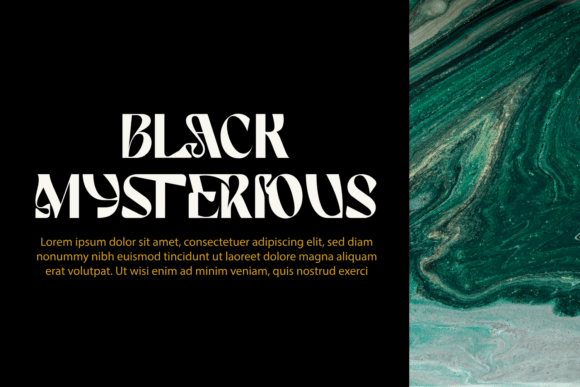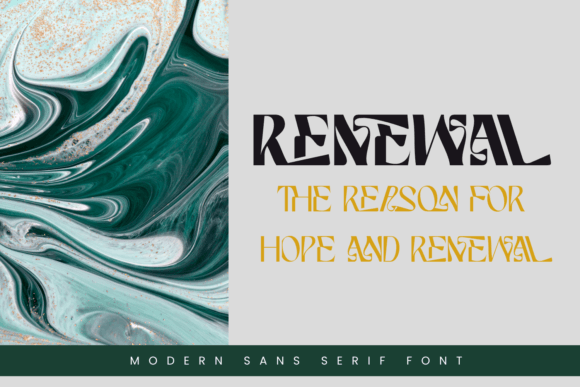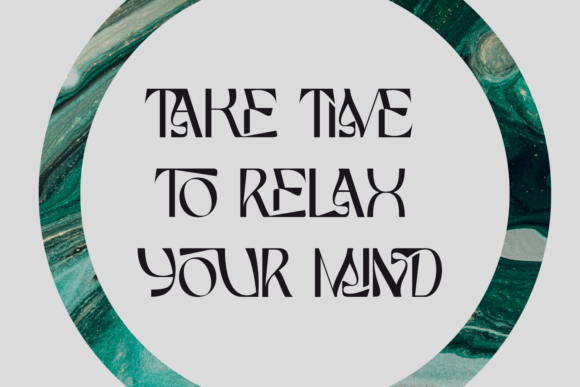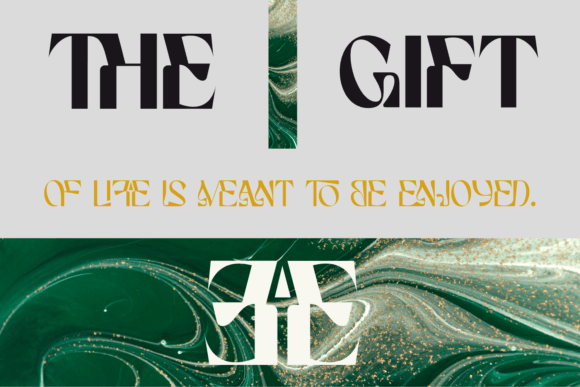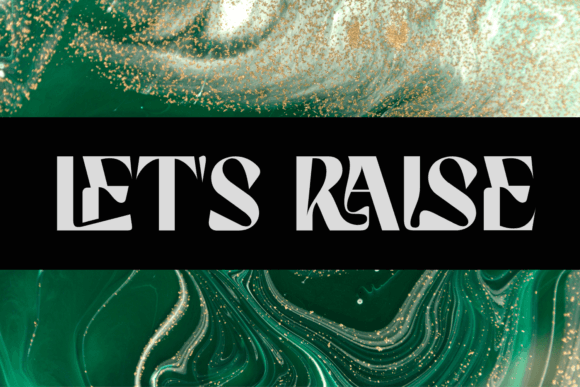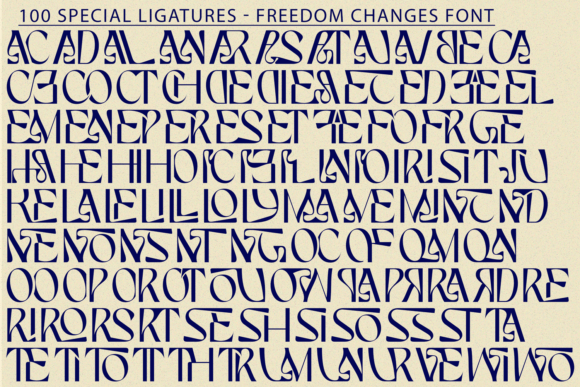
Freedom Changes Font: Elevate Your Designs with Elegance and Sophistication
In the world of design, typography plays a crucial role in conveying the tone and aesthetic of a project. For those seeking a font that embodies modern femininity and sophistication, Freedom Changes Font is an exceptional choice. This elegant luxury sans serif font is designed to bring a touch of luxury and elegance to various design projects, making it perfect for those who aim to create a graceful and high-end visual experience.
Unveiling Freedom Changes Font
Freedom Changes Font is not just any ordinary font; it’s an elegant beauty luxury sans serif font that has been meticulously crafted to cater to the needs of designers and crafters who are looking for a sophisticated and modern typeface. Its sleek design is versatile, making it suitable for a wide range of applications, from designing templates and brochures to creating captivating videos, advertising branding, logos, invitations, and more.
Key Features of Freedom Changes Font
- Elegant and Luxurious Design: The font boasts a sleek and sophisticated design that adds a touch of luxury and elegance to any project.
- Modern Femininity: It perfectly encapsulates modern femininity, making it ideal for designs that require a graceful and high-end aesthetic.
- Versatility: Freedom Changes Font is versatile and can be used for various design purposes, including templates, brochures, videos, advertising branding, logos, invitations, layout design, elegant crafting, beauty design, and more.
- OpenType Features: The font was built with OpenType features, offering advanced typographic capabilities.
- Extensive Character Set: It includes 100 ligatures, alternate characters, numbers, punctuation, and supports other languages, providing designers with a wide range of options for creative expression.
Applications of Freedom Changes Font
The versatility of Freedom Changes Font makes it an invaluable asset for designers and crafters working on a variety of projects. Here are some of the key areas where this font can make a significant impact:
- Branding and Advertising: Use Freedom Changes Font to create elegant and sophisticated brand logos, advertisements, and marketing materials that stand out.
- Stationery and Invitations: Add a touch of luxury to your stationery, invitations, and greeting cards with this beautiful font.
- Digital Media: It’s perfect for video titles, YouTube intros, and other digital content that requires a modern and feminine touch.
- Fashion and Beauty: For designers in the fashion and beauty industries, this font offers a stylish and contemporary typeface for branding, packaging, and promotional materials.
Why Choose Freedom Changes Font?
In a sea of fonts, Freedom Changes stands out for its unique blend of elegance, luxury, and modern femininity. Here are a few reasons why designers and crafters should consider adding it to their collection:
- Unique Aesthetic: It offers a distinctive look that can help differentiate your designs from the competition.
- High Versatility: Its wide range of applications makes it a valuable addition to any designer’s toolkit.
- Easy to Use: Built with OpenType features, it is easy to access the various ligatures, alternates, and other typographic elements.
- Multilingual Support: The font’s support for multiple languages makes it a great choice for international design projects.
Freedom Changes Font is more than just a typeface; it’s a design statement that speaks of elegance, luxury, and modern femininity. Its versatility, extensive character set, and sophisticated design make it an excellent choice for designers and crafters looking to elevate their projects. Whether you’re working on branding, advertising, digital media, or any other design endeavor, Freedom Changes Font is sure to bring a touch of sophistication and grace. Embrace the freedom to create with a font that changes the way you think about typography and design.